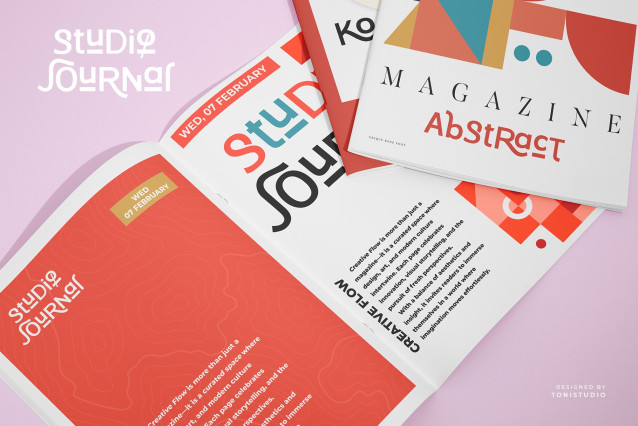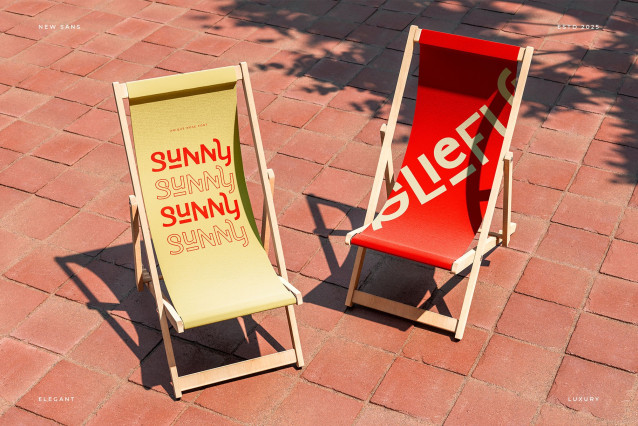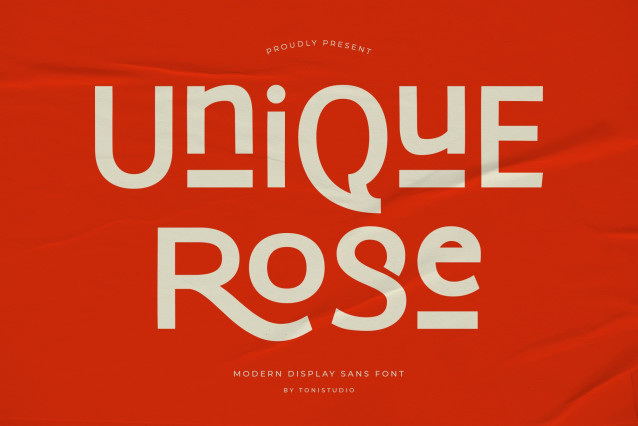
Unique Rose Font is a modern display sans serif font designed to deliver elegance, style, and boldness in every project. With its clean geometric shapes and contemporary design, this typeface is perfect for designers and creatives who want their work to stand out with a unique and professional look.
Crafted for versatility, Unique Rose works beautifully in both print and digital media. Its sleek and artistic letterforms make it highly suitable for logos, branding, packaging, advertising, social media content, magazine headlines, website headers, invitations, fashion editorials, and poster designs. Whether you need a striking title font or a stylish display typeface, Unique Rose provides the modern touch your design deserves.